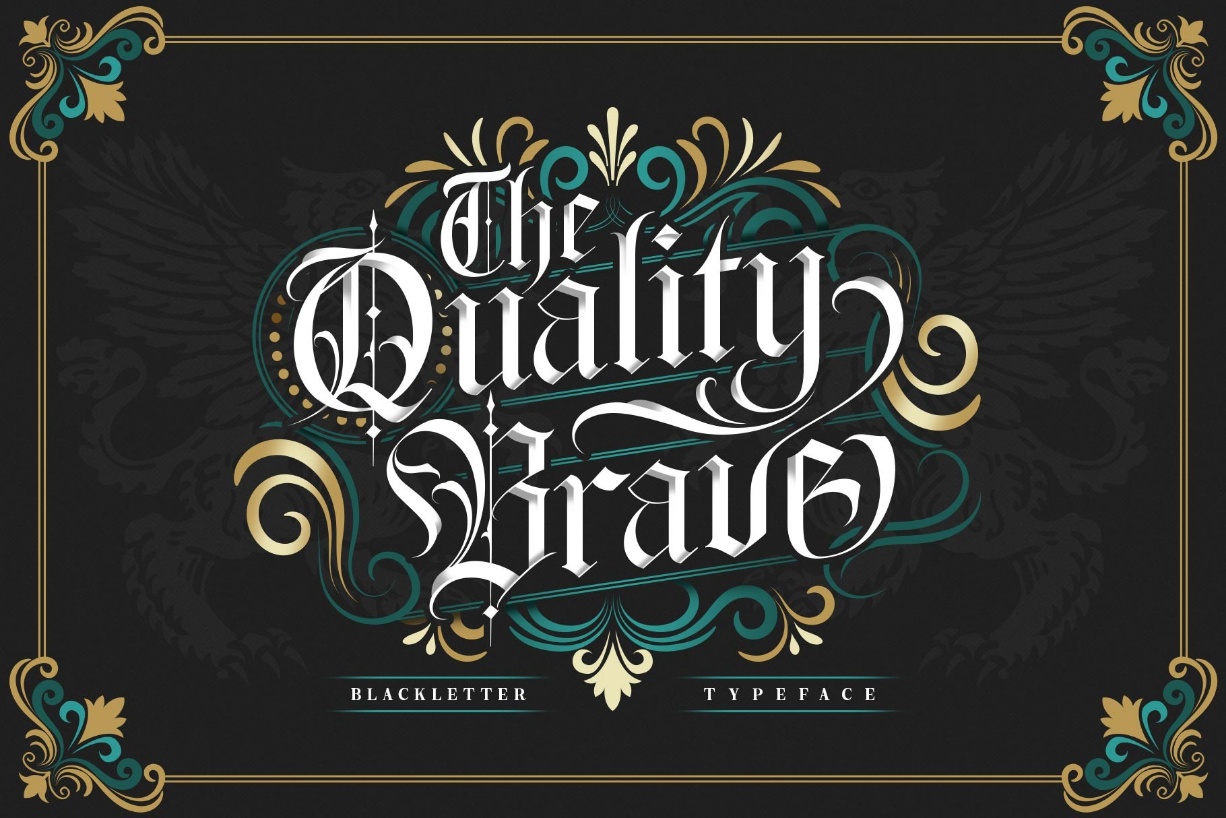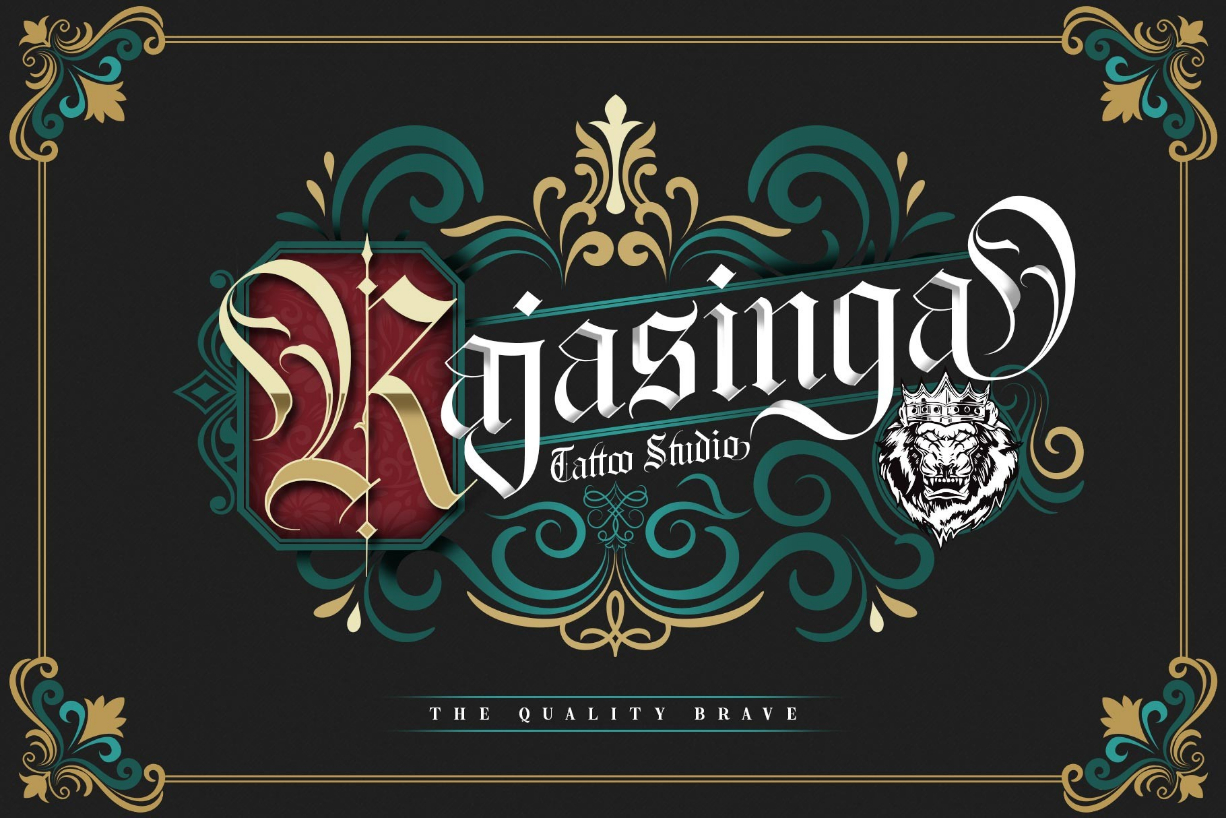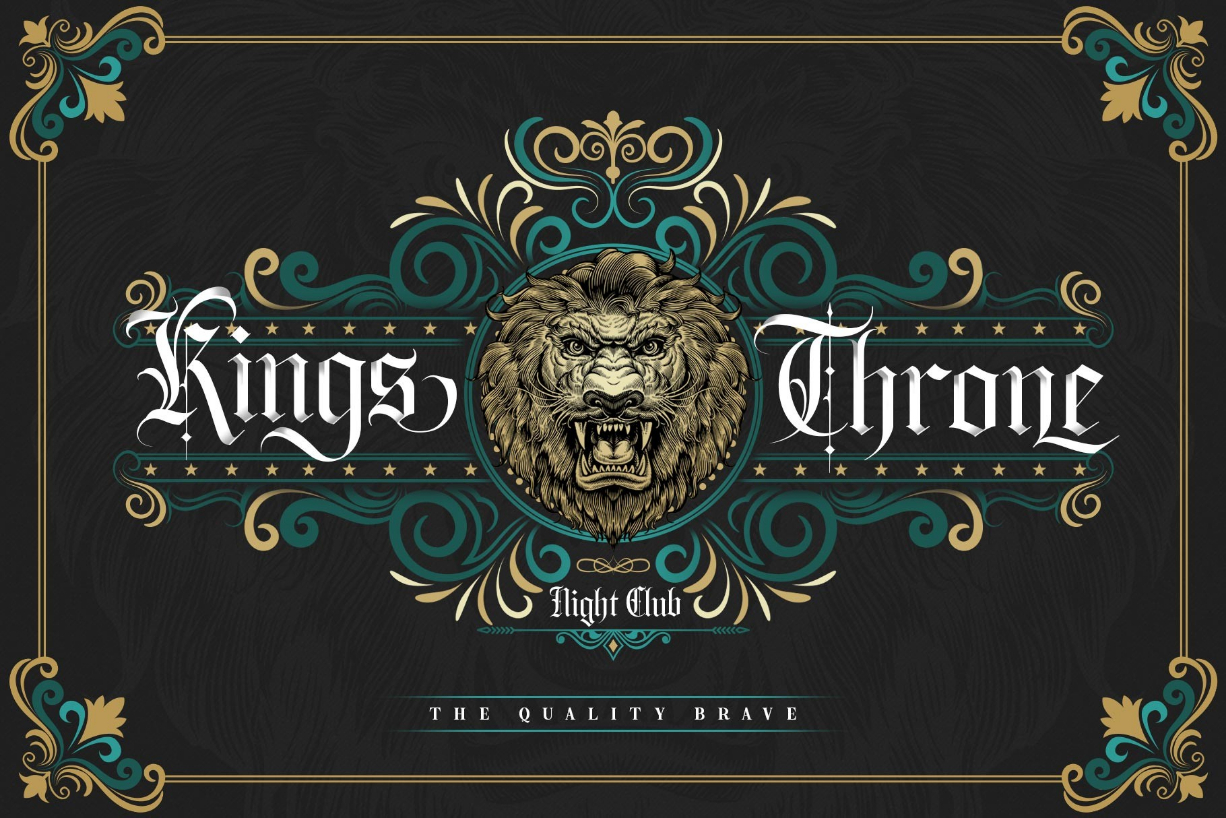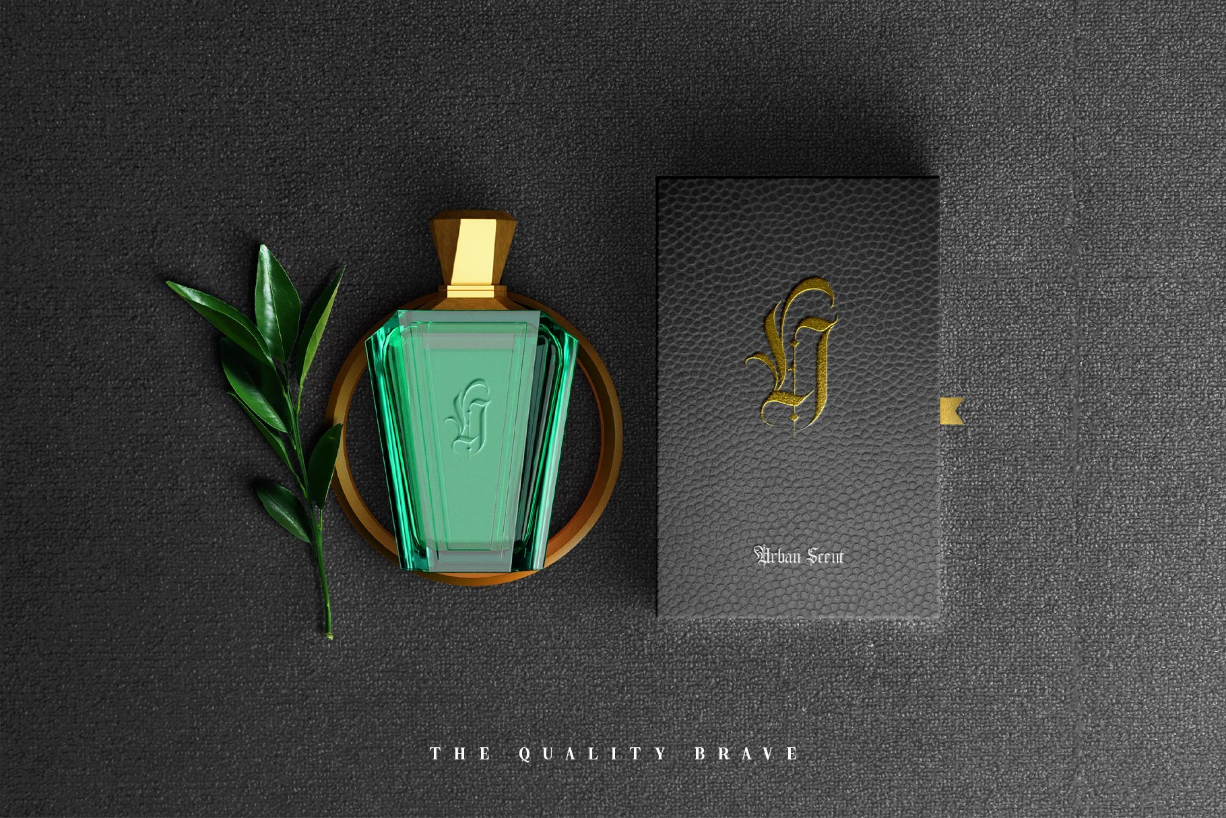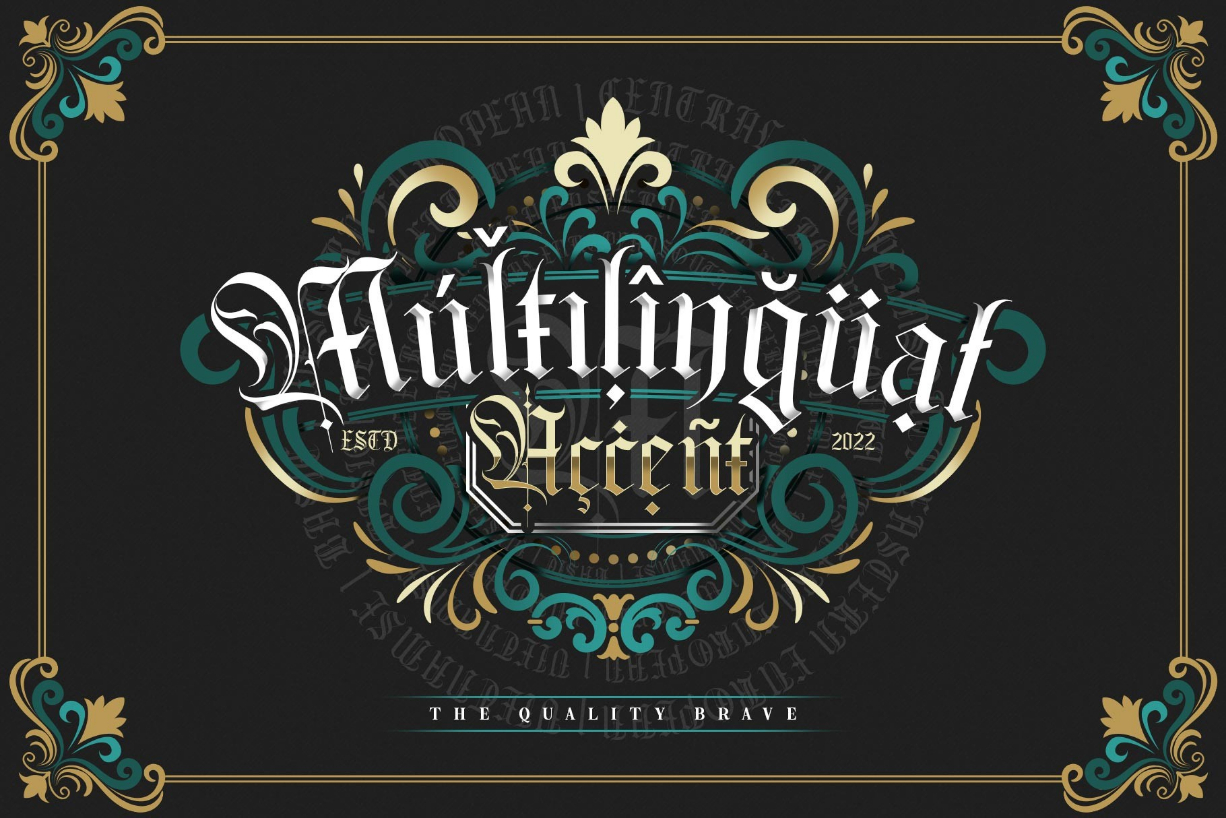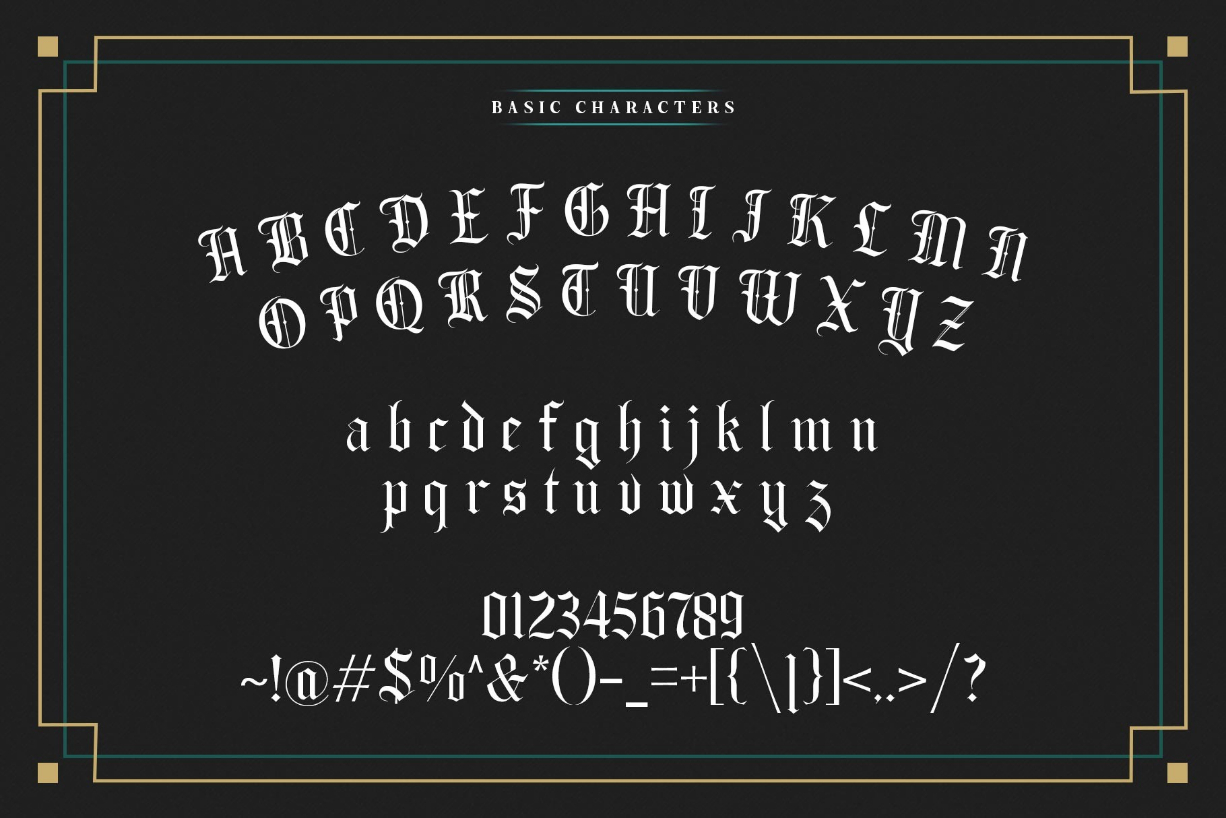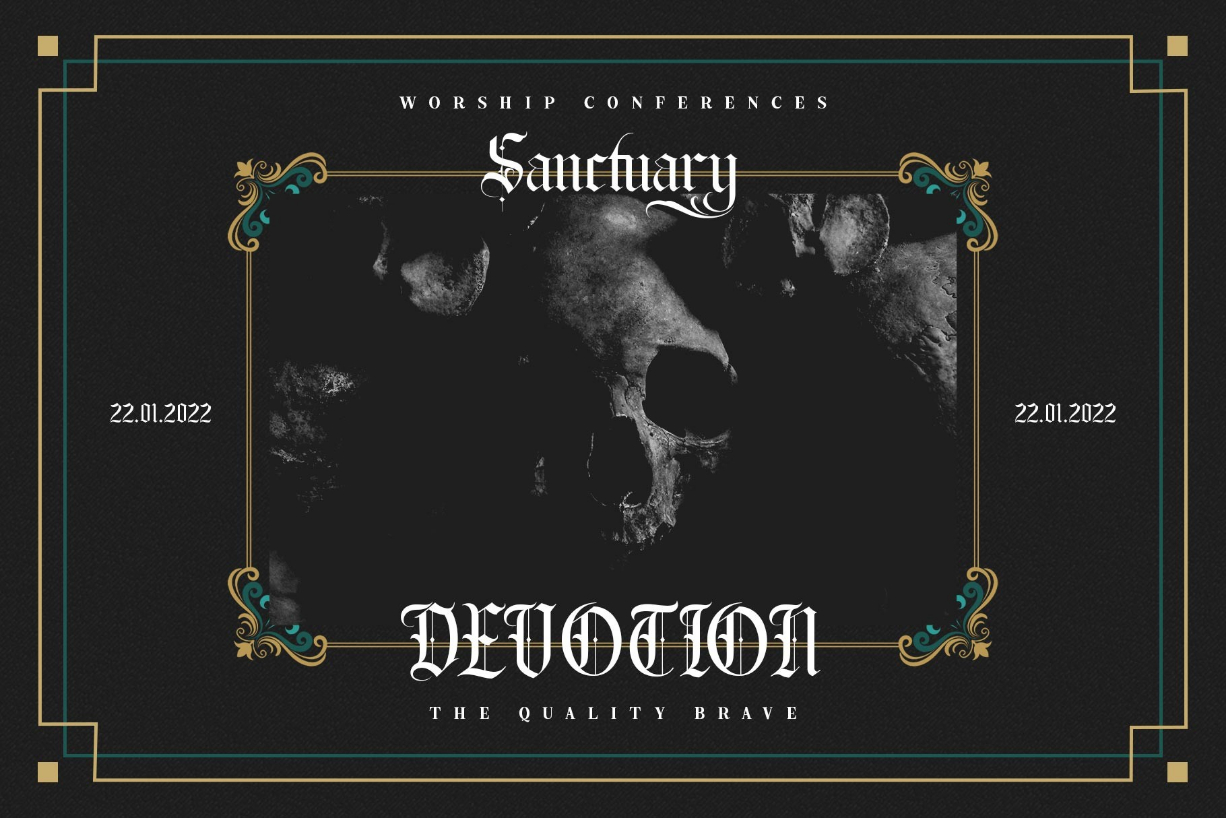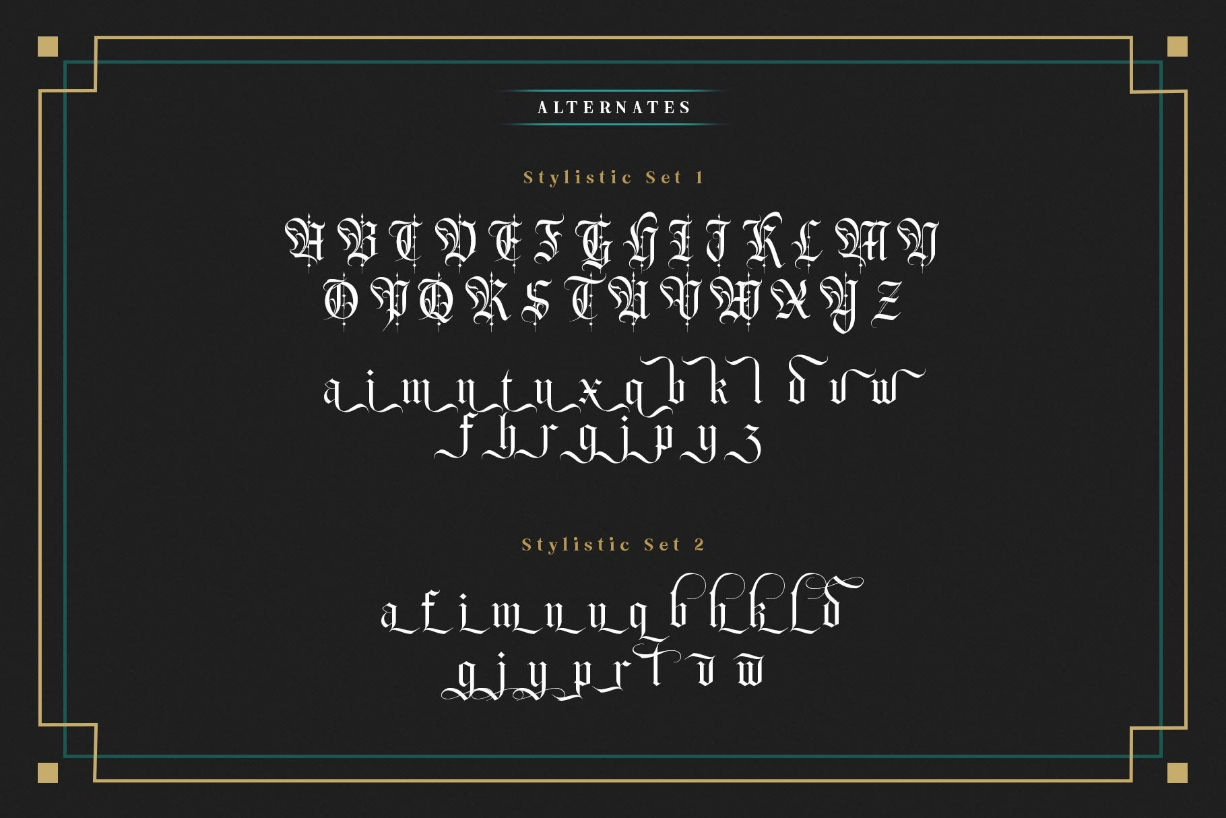
About The Quality Brave Font
The Quality Brave is a stylish and highly detailed blackletter font. It works great on labels, branding, logos and more. This font is PUA encoded which means you can access all of the glyphs and swashes with ease!